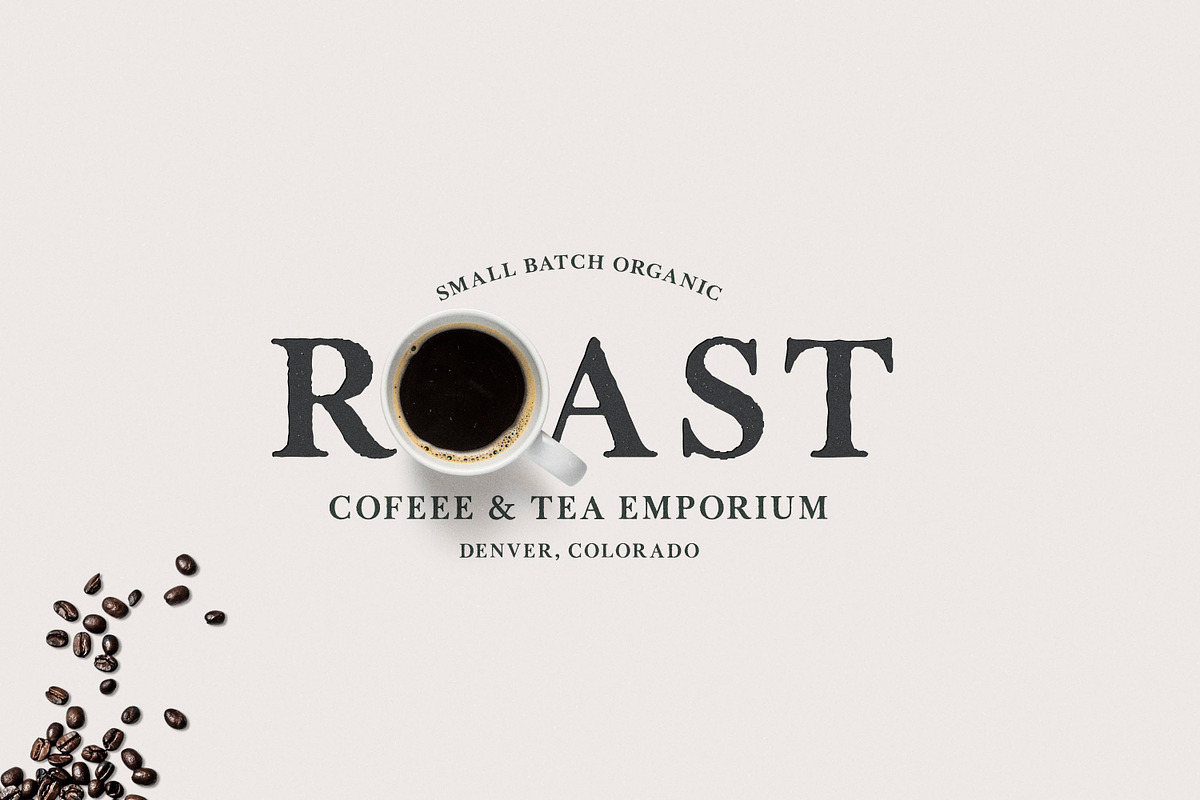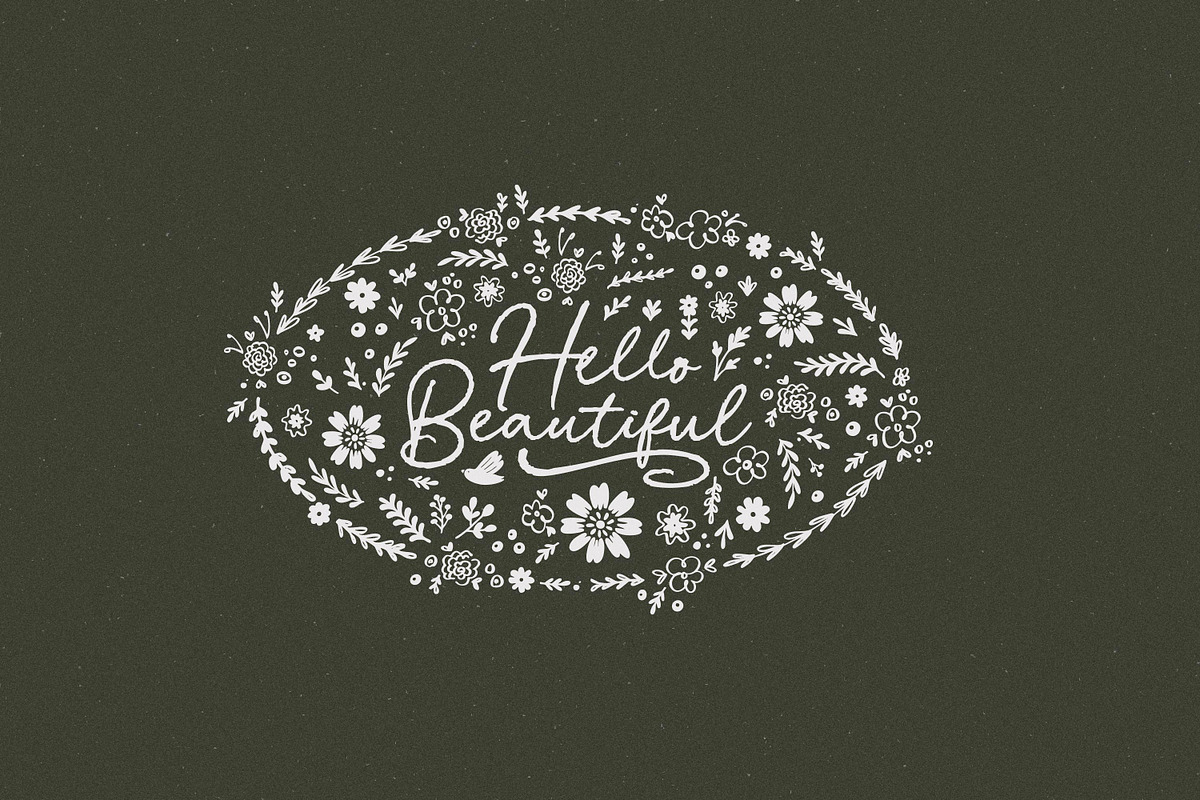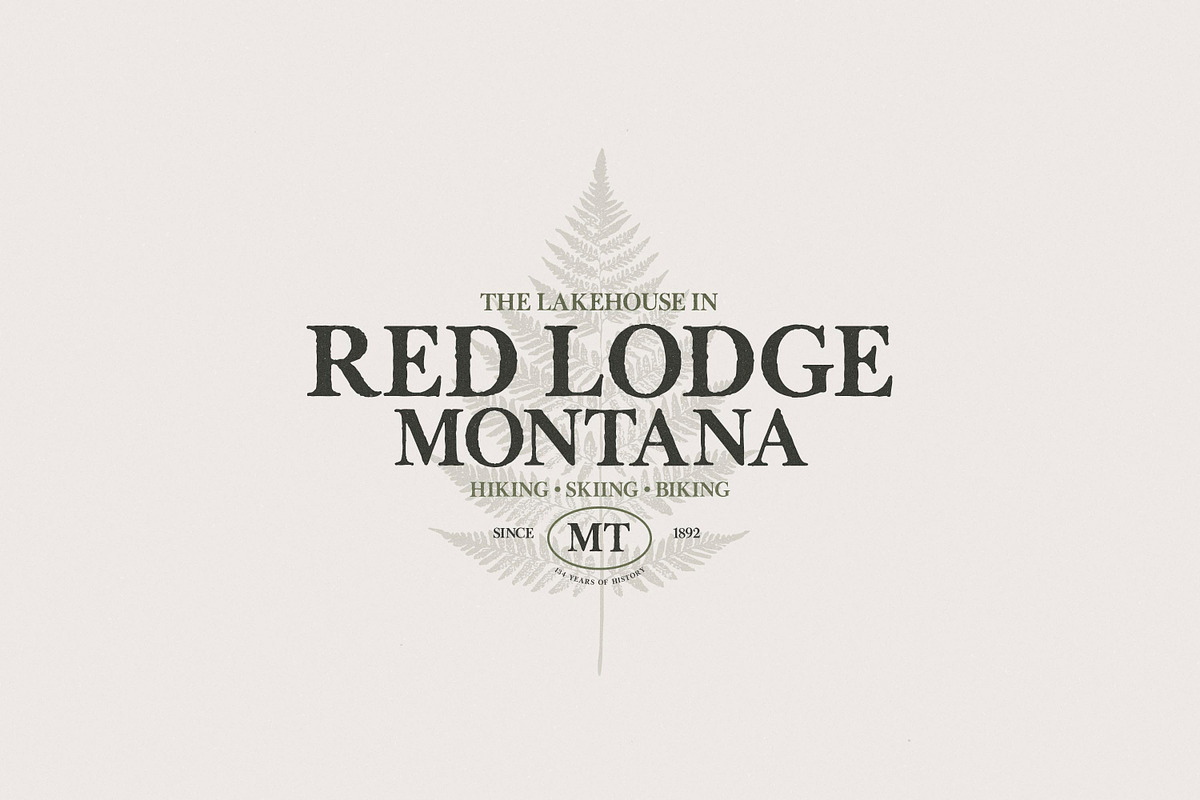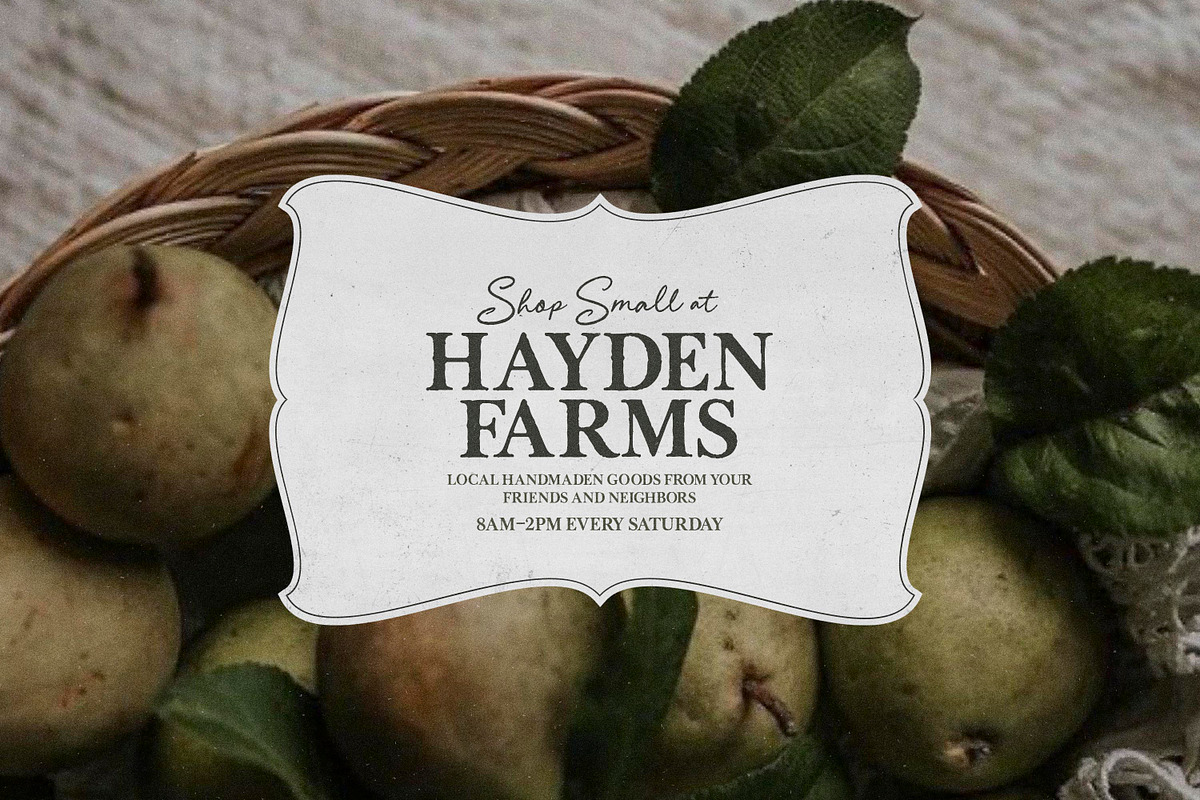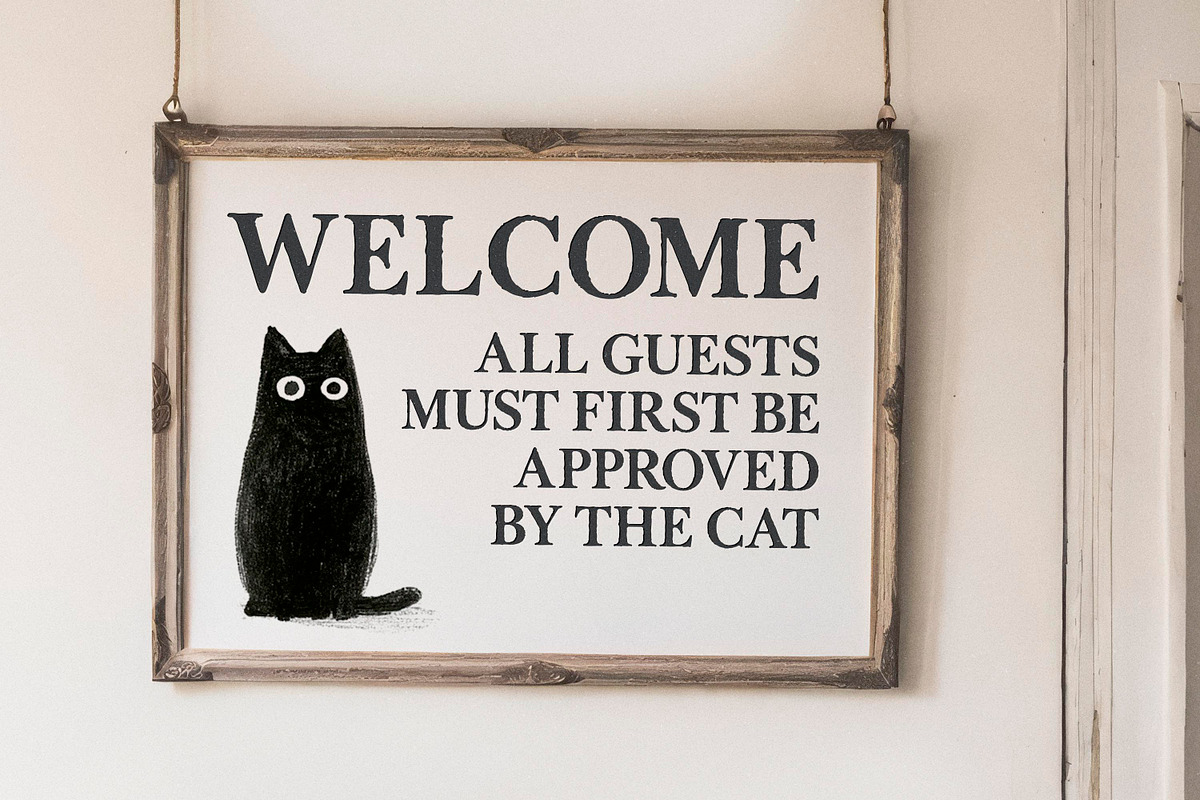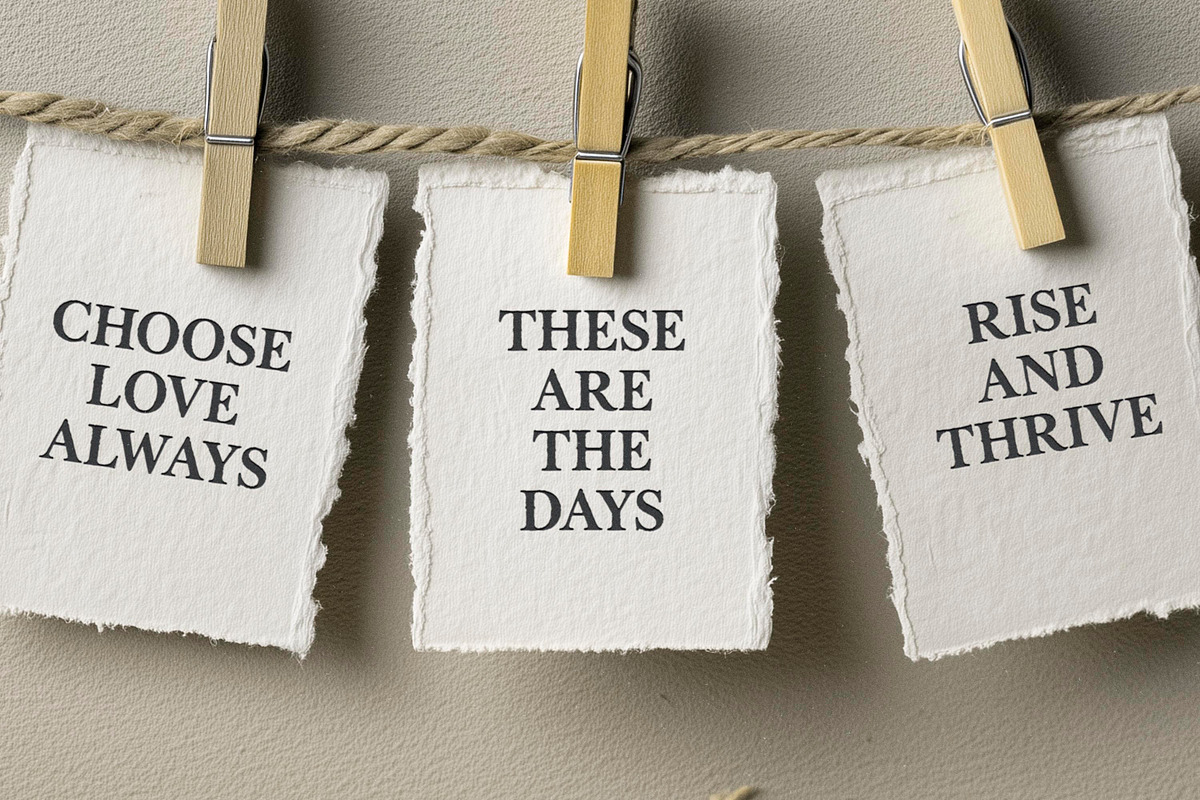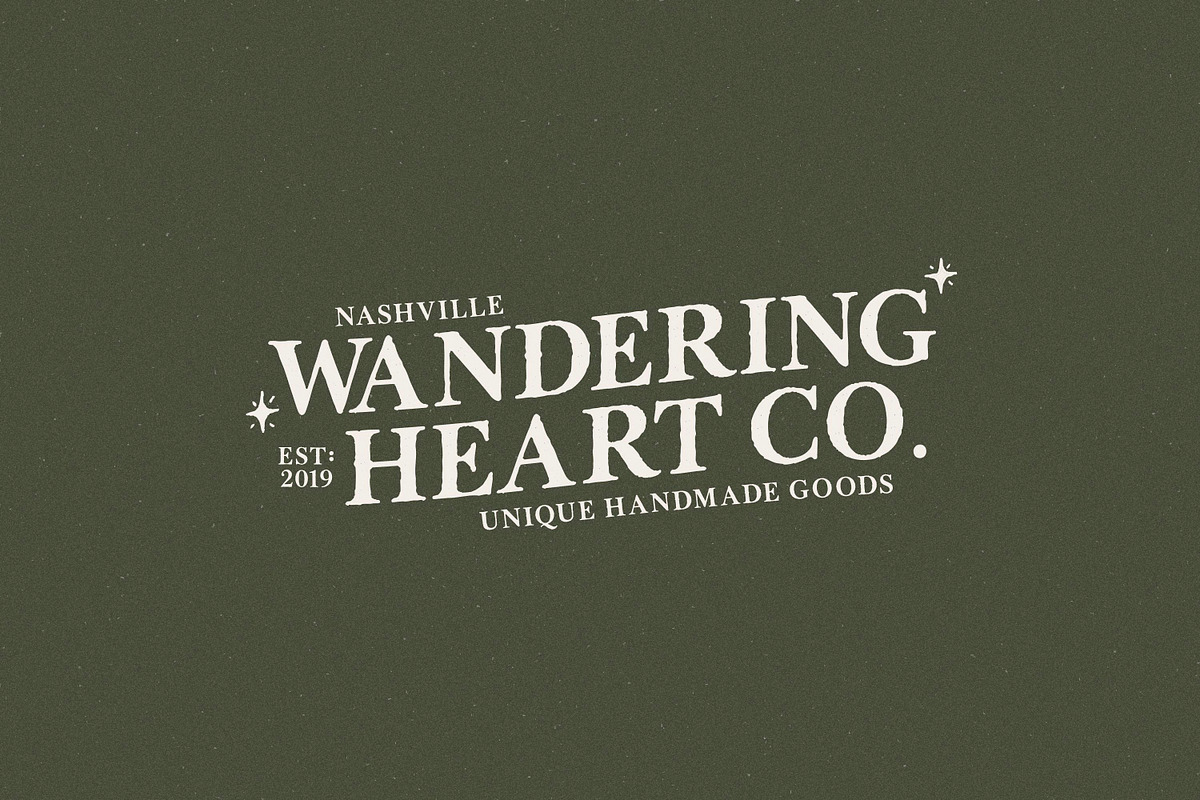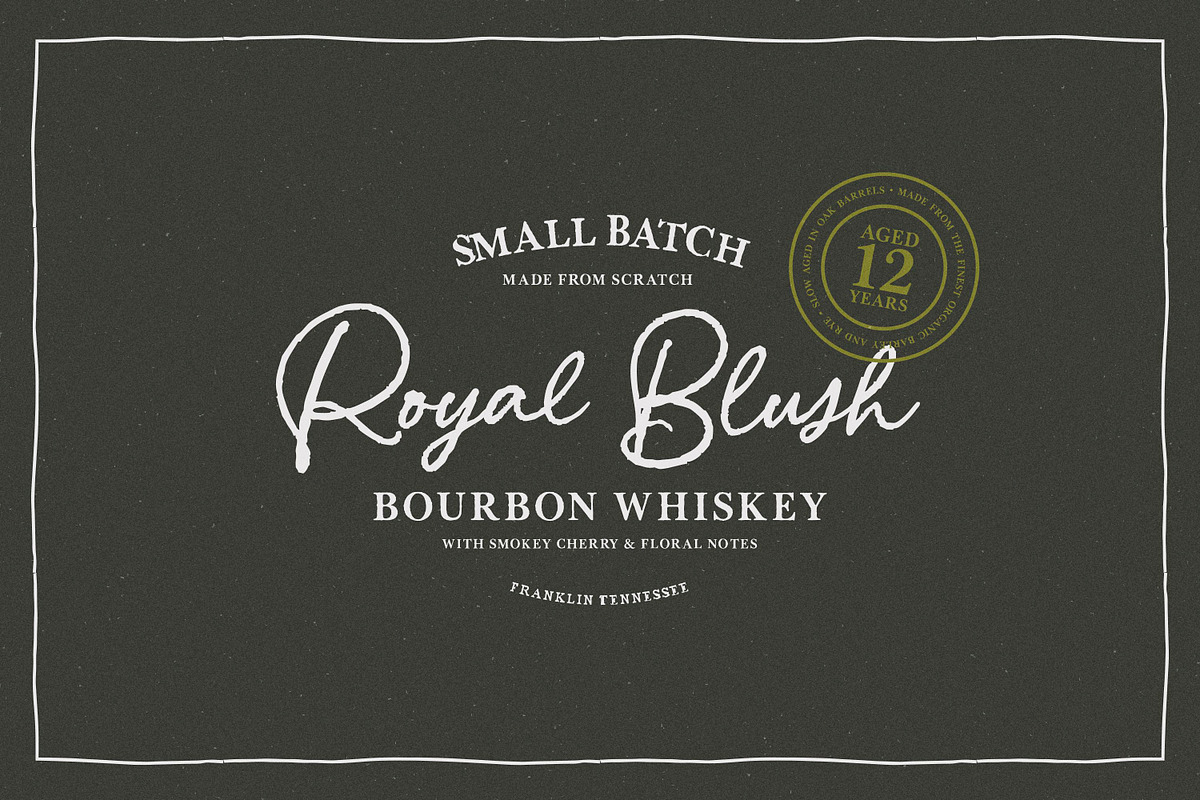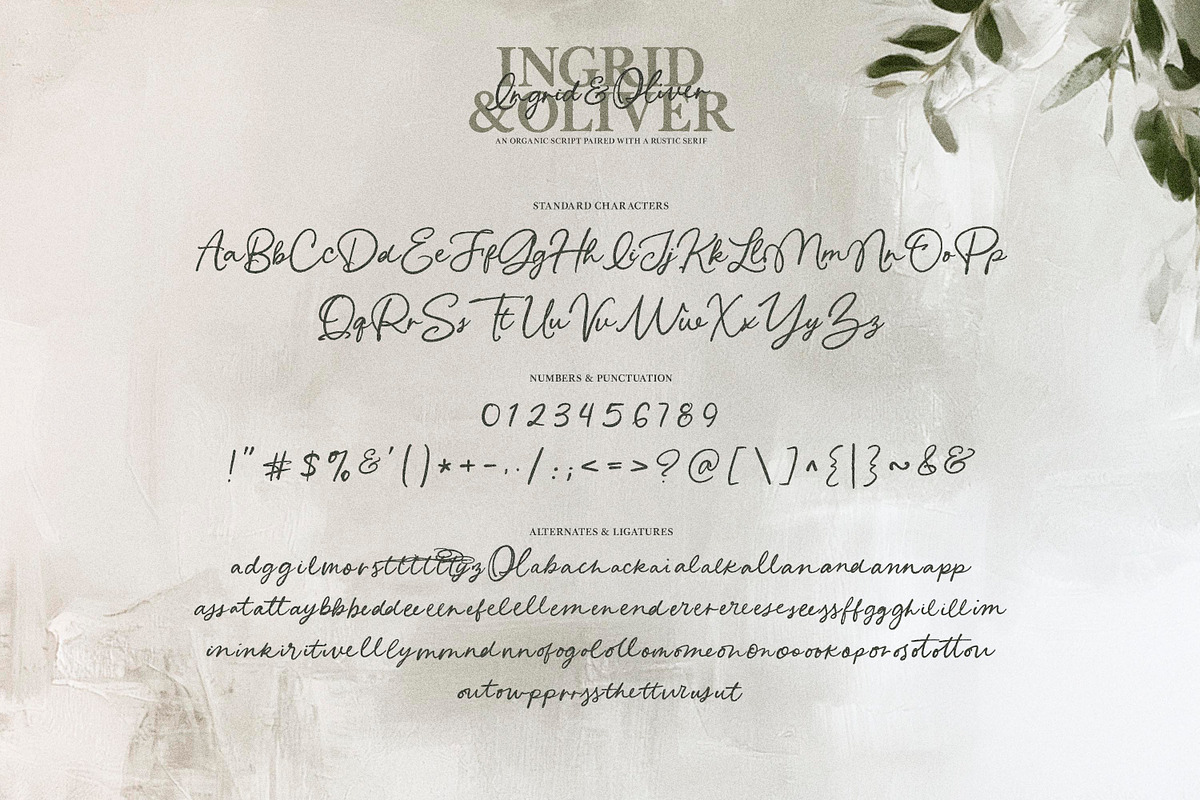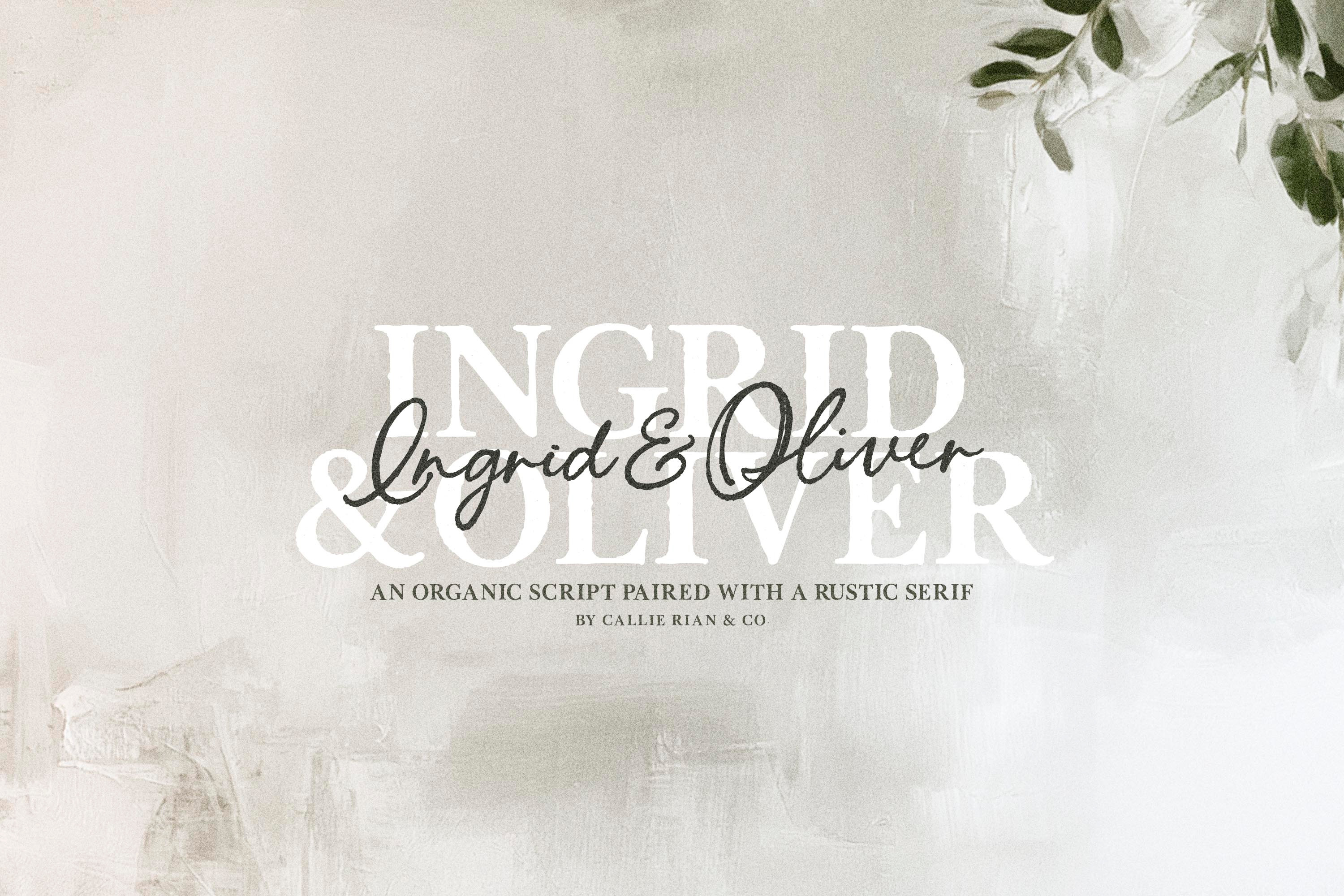
Ingrid & Oliver | Rustic Font Duo
I’m so excited to introduce Ingrid & Oliver rustic font duo!
Few things get me more excited than a good Script & Serif duo that’s versatile enough for quotes, signage, packaging and branding. This rustic duo covers so many bases. Dare I say, it’s the perfect type combo. 😏
100+ Alternates + Ligatures
- Please Note these fonts are handwritten & vectorized, so the edges are purposely irregular. They are best used on print/web, rather than Cricut or Silhouette.